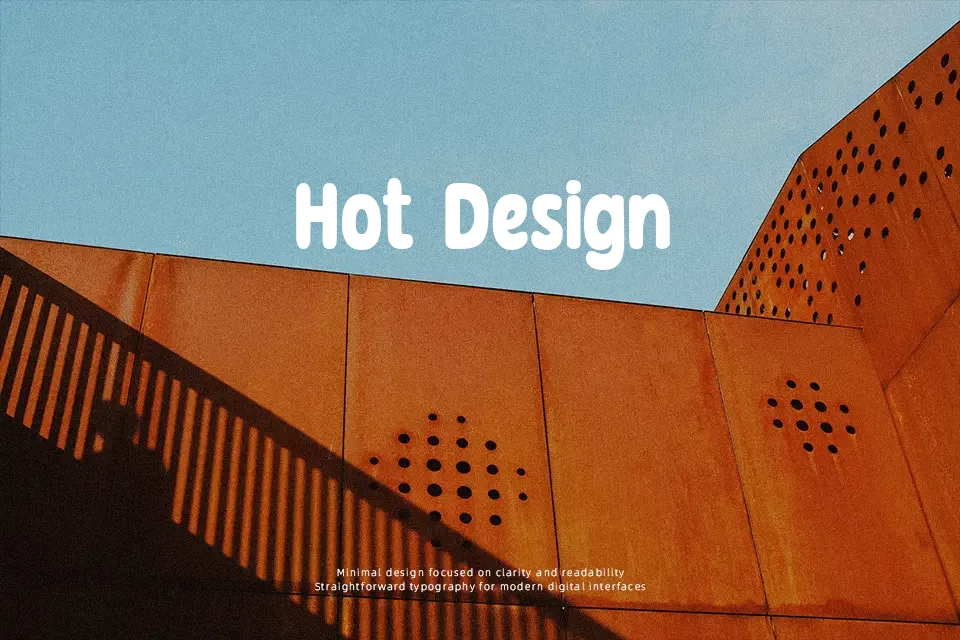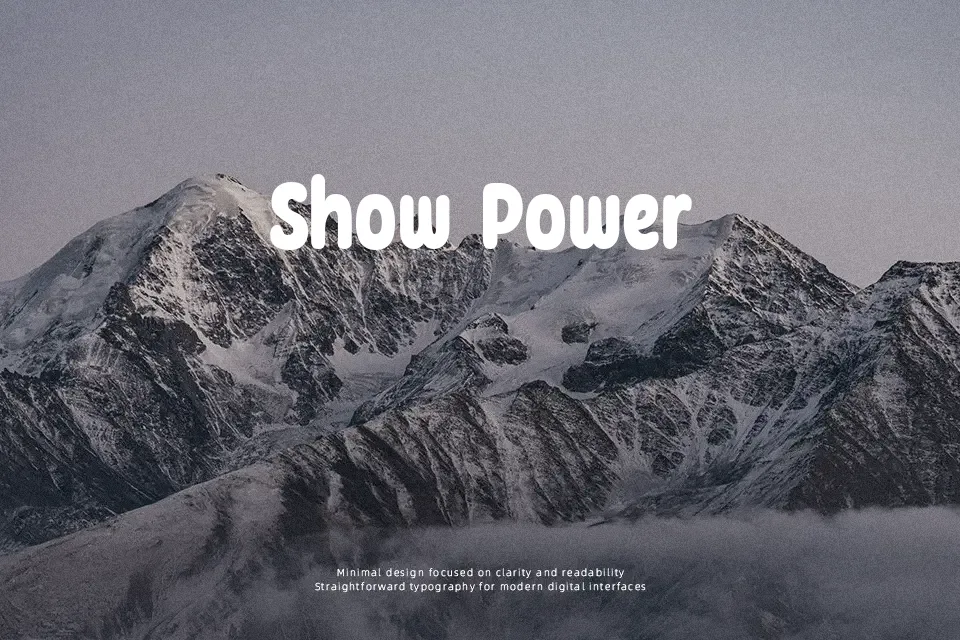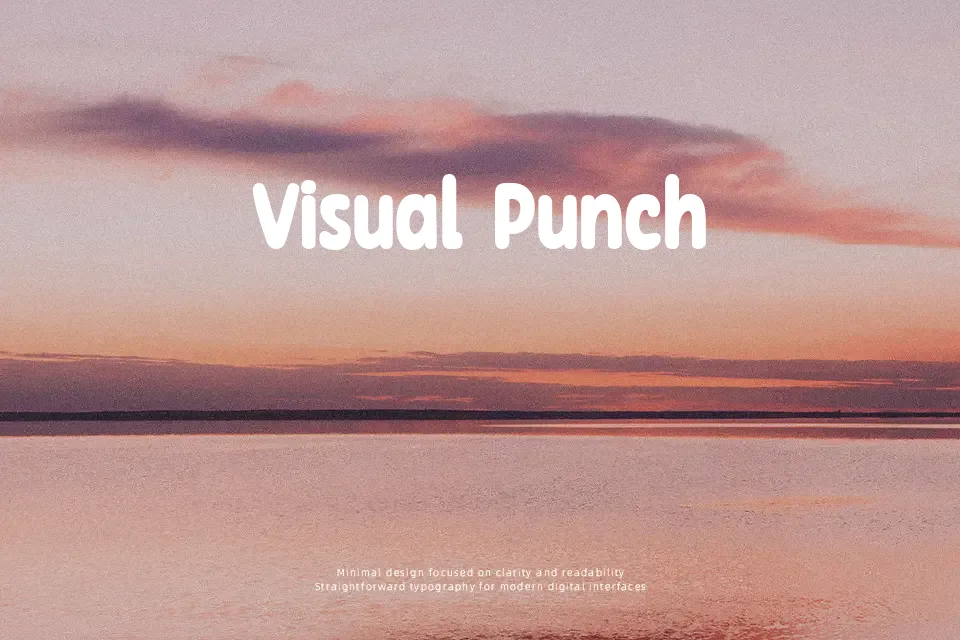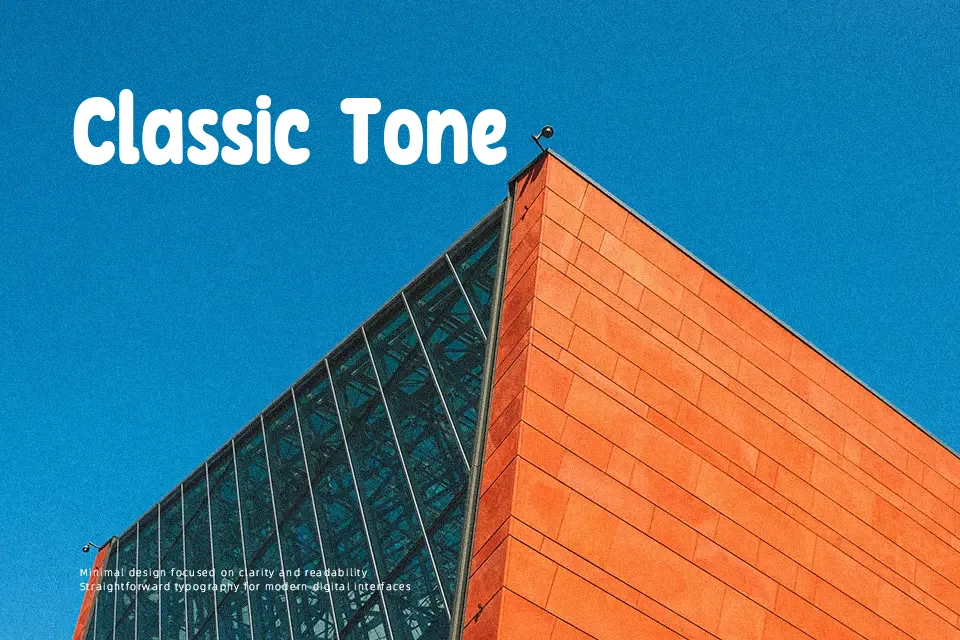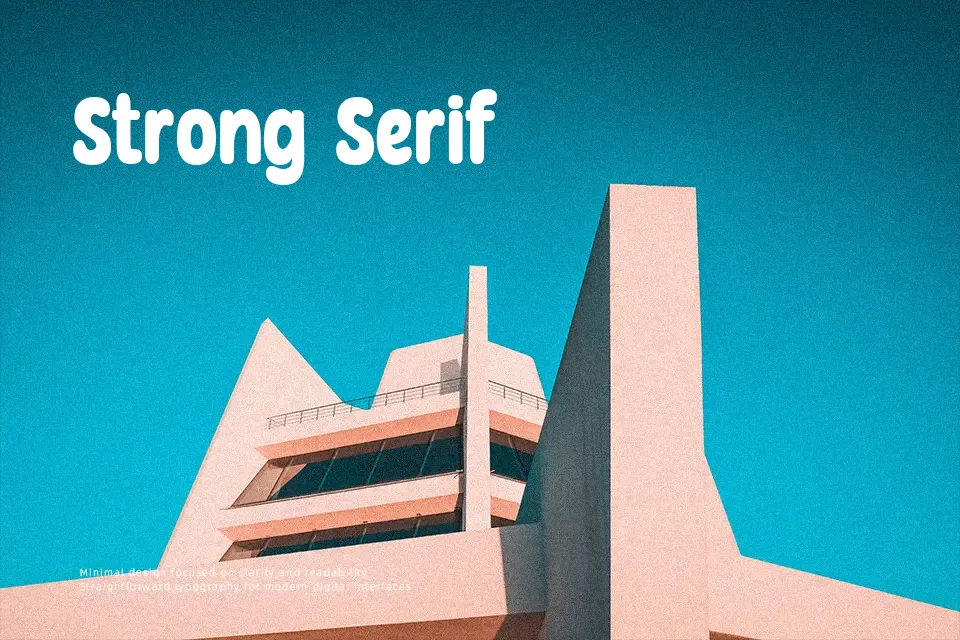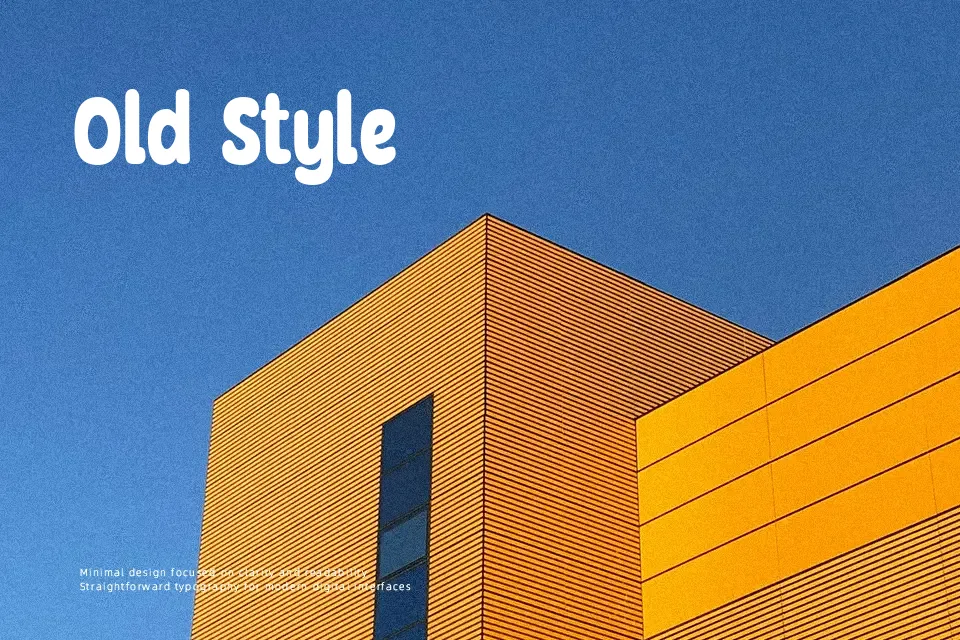
Oddly Calming Font
Oddly Calming Font uses loose handwritten forms, rounded strokes, and uneven letter proportions to create an informal display look. The characters appear lightly connected in rhythm rather than formally scripted, with varied curves and a relaxed baseline presence. Spacing is relatively open enough for short words and headings, helping the design remain recognizable at larger sizes. It works well when a project needs a soft, personal touch without relying on rigid geometry. The decorative details become less effective in small text, so the typeface is better treated as an accent than a reading font.
Perfect for headline, invitation, and logo, with a calm and decorative style.